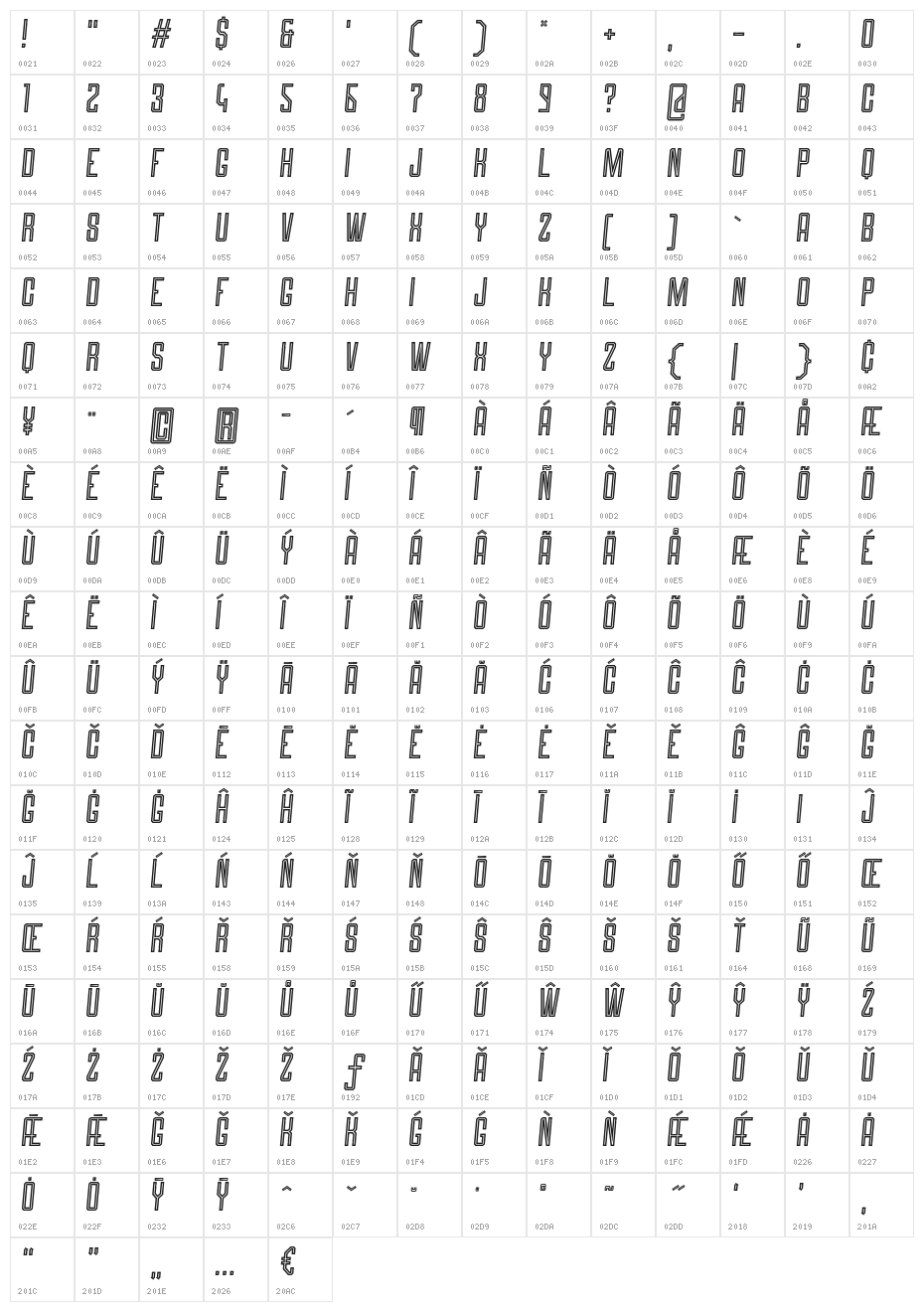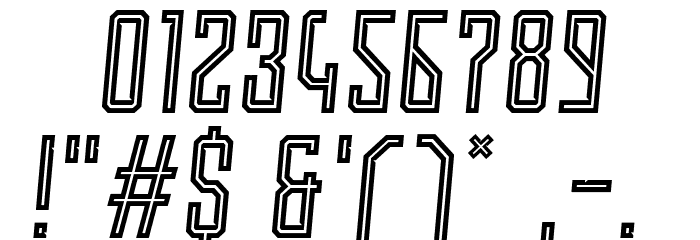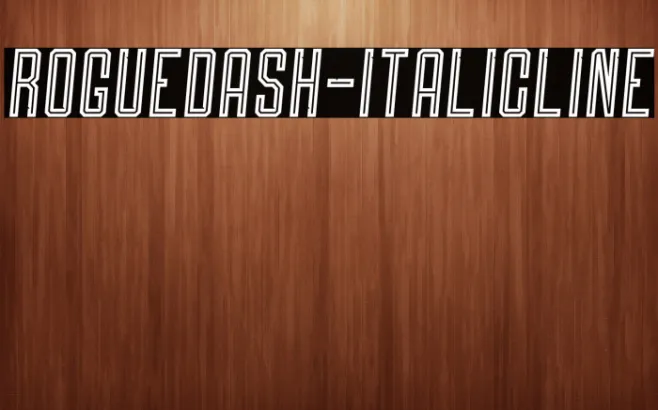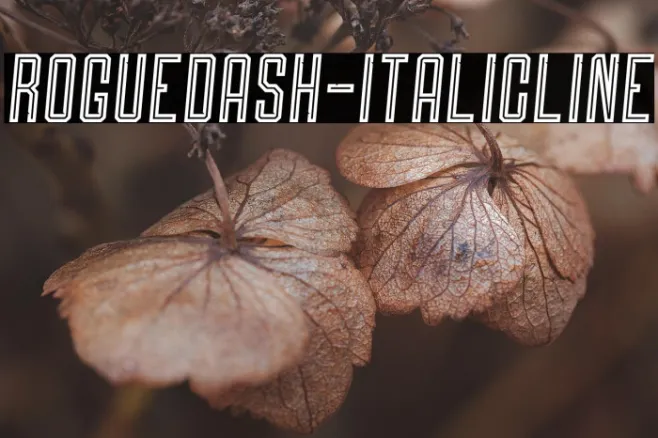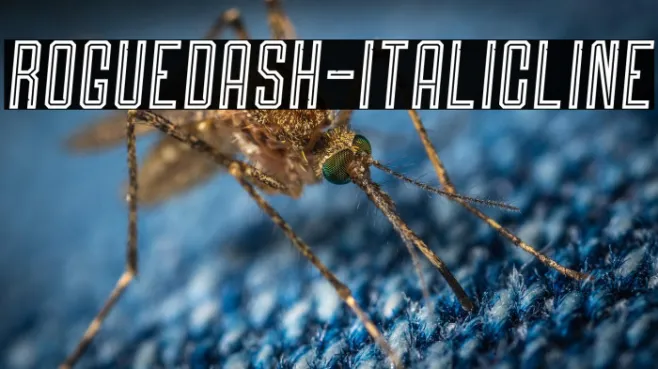
Roguedash-ItalicLine Font
Roguedash-ItalicLine Description
This font features a modern, geometric design with a distinctive outline style. The characters are tall and narrow, giving them a sleek and elongated appearance. The strokes are consistent in width, creating a uniform look across all characters. The font has a futuristic and technical feel, making it suitable for projects that require a contemporary and edgy aesthetic. The uppercase and lowercase letters maintain a similar style, with the lowercase being slightly smaller in size. Numbers and special characters are designed to match the overall theme, ensuring a cohesive look.
| Use Case | Logos, Posters, Headlines |
| Proposed Projects | Ideal for technology branding, sci-fi themed projects, posters, and modern logos. |